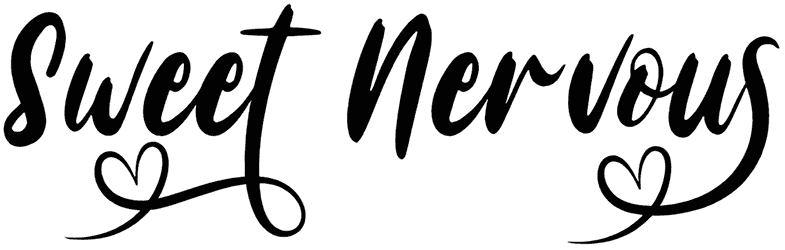
Prillia Font
Prillia is a stunning display of a personal work of art that showcases beautiful curves, heart embellishments, and romantic details. Whether used for formal invitations, attractive signs, or to add a little sophistication to everyday communication, this romantic font elevates any message to a higher level of beauty and elegance.
So please take a moment to appreciate the beauty and artistry of this script font and let it inspire you to bring a sense of grace and creativity to whatever you do.
Designed by: Integritype Studio